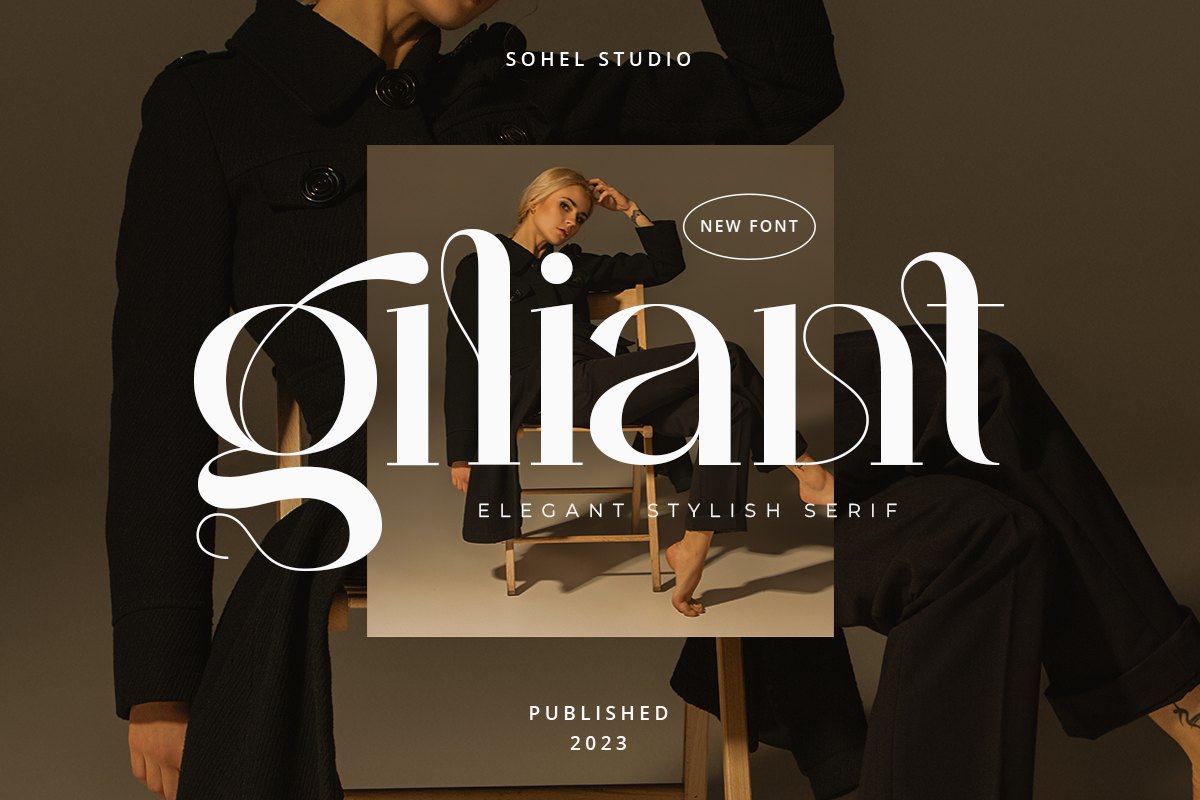
Giliant - Jewelry Elegant Typeface Free Download
Giliant – Jewelry Elegant Typeface Free Download is a luxurious and refined serif font crafted to exude class and sophistication. Designed with the jewelry and fashion industries in mind, Giliant features high-contrast strokes, elegant curves, and graceful ligatures that make it perfect for upscale branding, packaging, wedding invitations, magazine spreads, and boutique logos.
Whether you're designing for a luxury brand, high-end product, or stylish editorial, Giliant – Jewelry Elegant Typeface Free Download brings timeless beauty and professional polish to your typography. Its detailed and graceful letterforms shine in both digital and print formats, offering a premium look with every character.
Elevate your designs with Giliant – Jewelry Elegant Typeface Free Download and bring a touch of elegance, grace, and fashion-forward style to your next creative masterpiece.